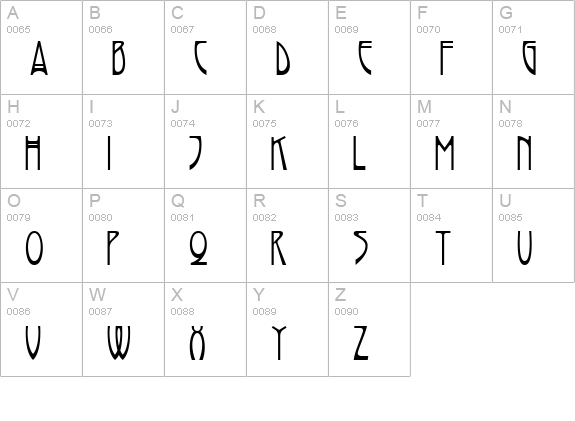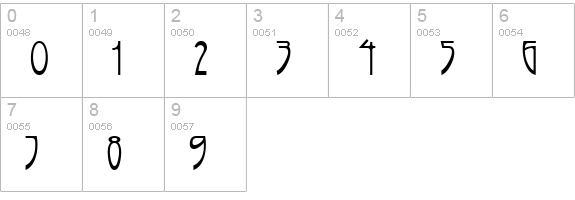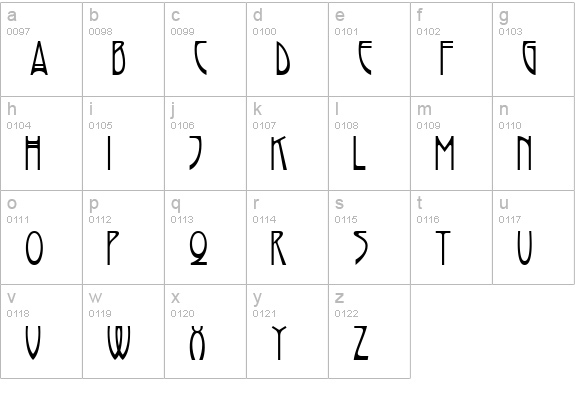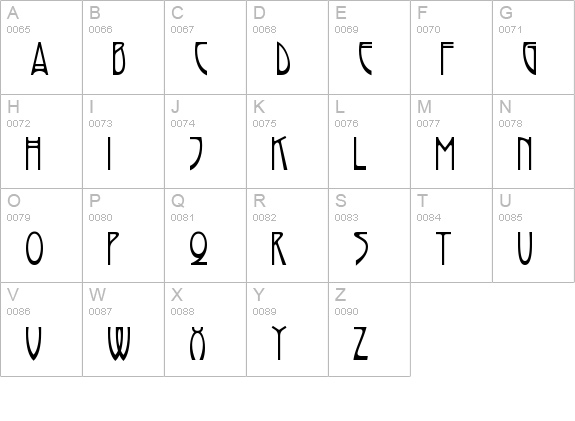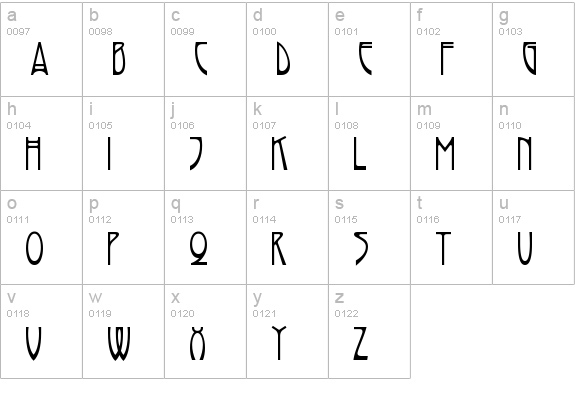
Rivanna Font Details
Introducing Rivanna, a versatile and elegant font that exudes sophistication and charm. With its clean lines and modern aesthetic, Rivanna is perfect for a wide range of design projects, from branding to editorial design. The graceful curves and sharp edges of Rivanna make it a standout choice for creating eye-catching logos, headlines, and more. What sets Rivanna apart is not just its timeless design, but also the fact that it is available for free download at FontsMarket.com. Yes, you read that right - Rivanna is freely available to all, making it accessible to designers, creatives, and enthusiasts alike. So why wait? Elevate your projects with Rivanna today and make a lasting impression with this stunning font.